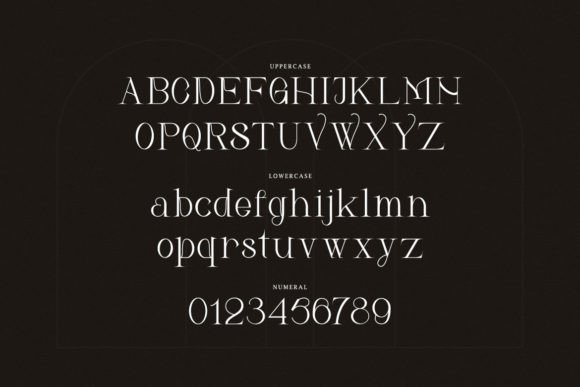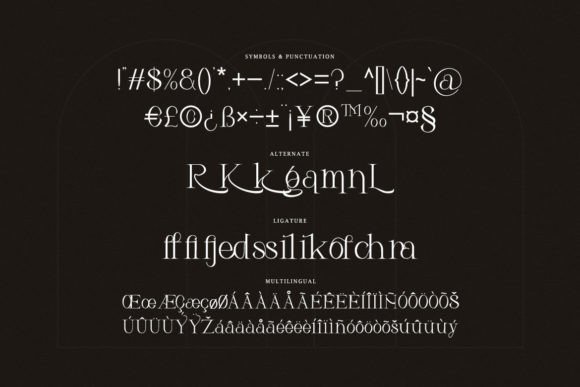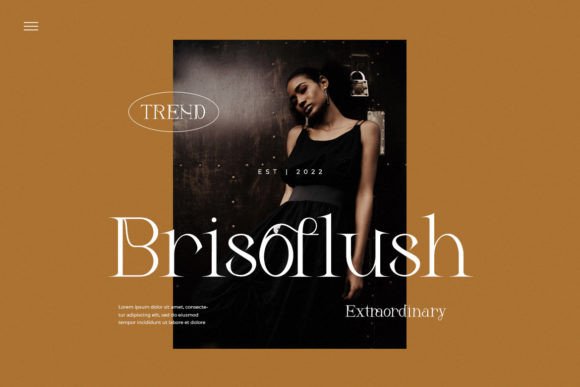
Introduction to Redellian Font
Redellian is a modern serif that blends traditional influences into a contemporary aesthetic.
Elegantly crafted and easily matched to an incredibly large set of projects Use this font to achieve an exquisite, yet subtle look and maximum versatility.
Key Features of Redellian Font
Why Choose Redellian Font?